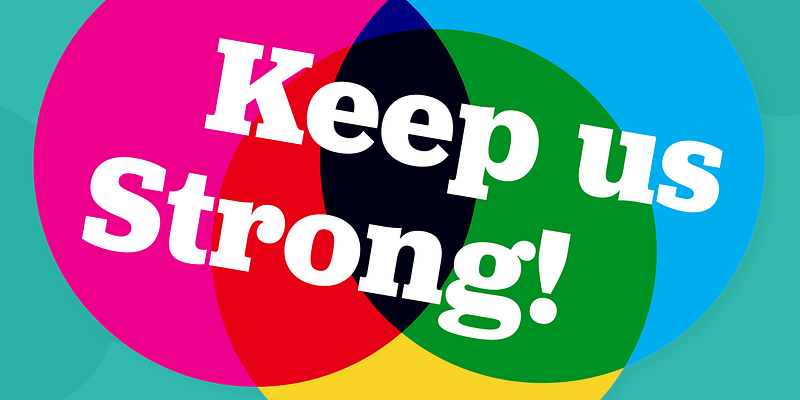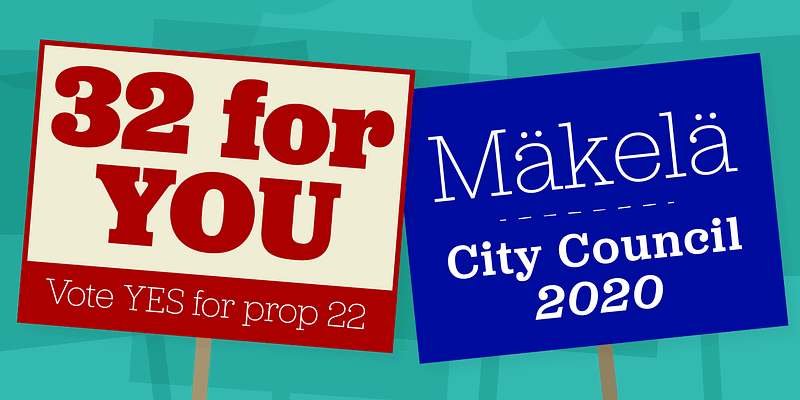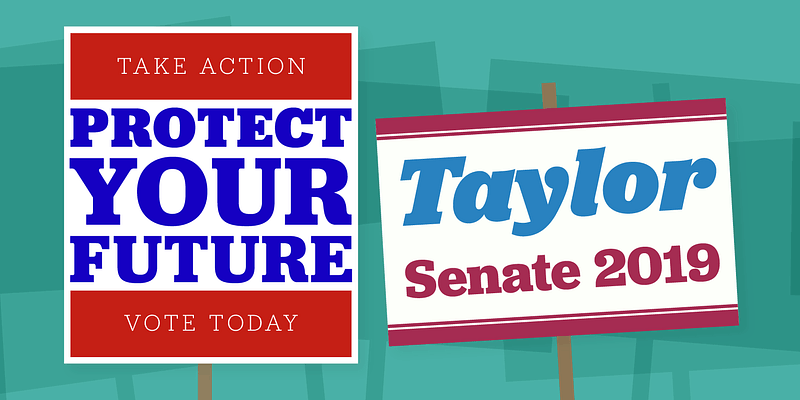
Jubilat explores the history of the slab serif in six weights, with generous curves and efficient spacing in both dimensions. Its large lowercase and high contrast make it suitable for headlines, decks, and sidebars.